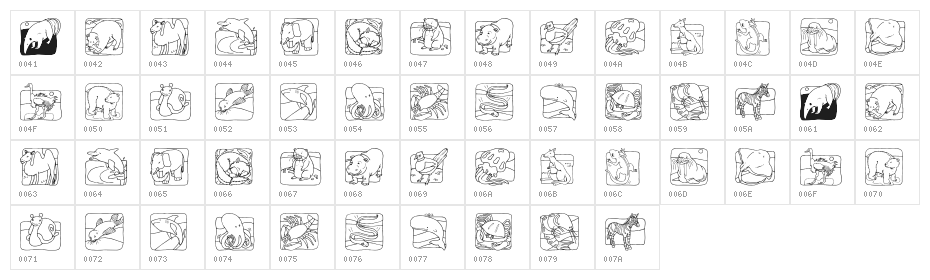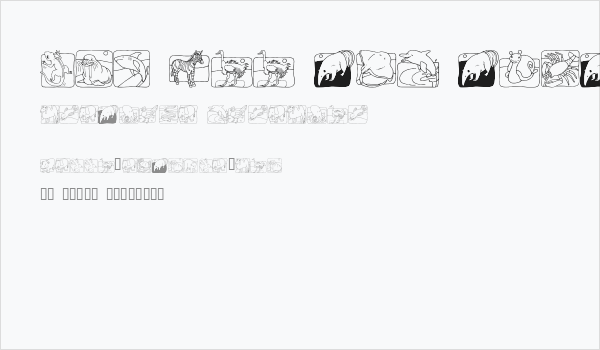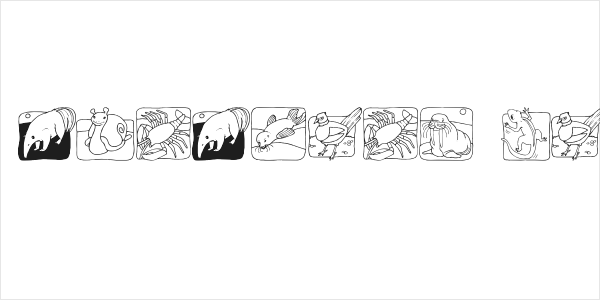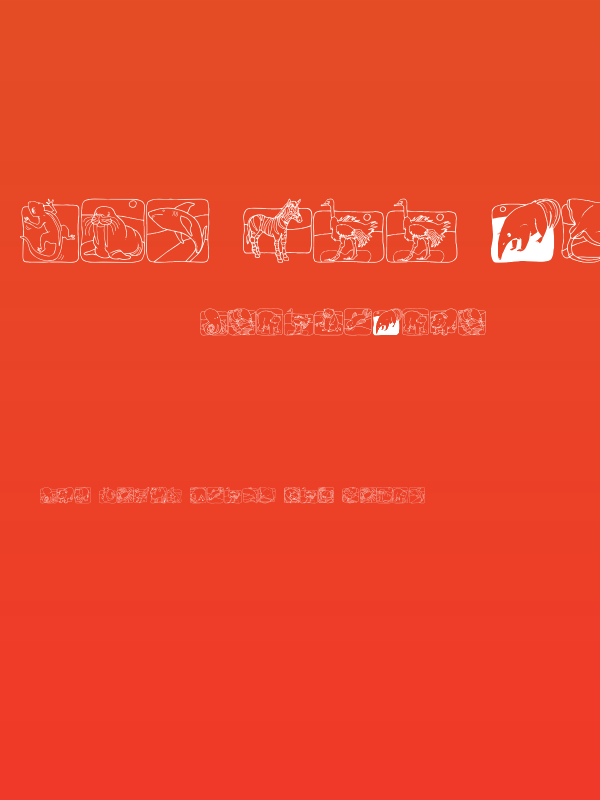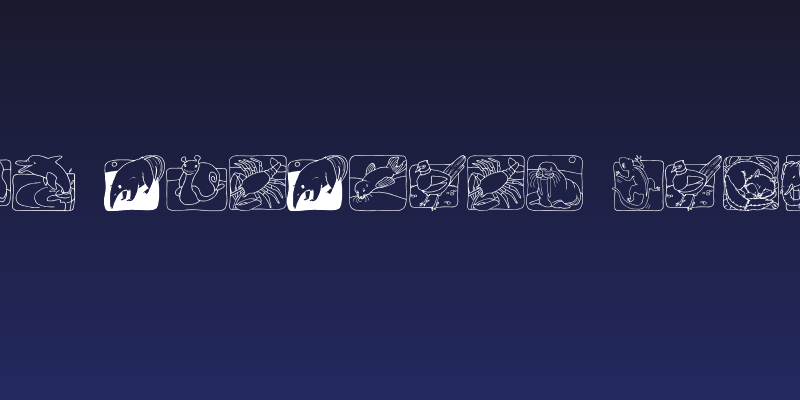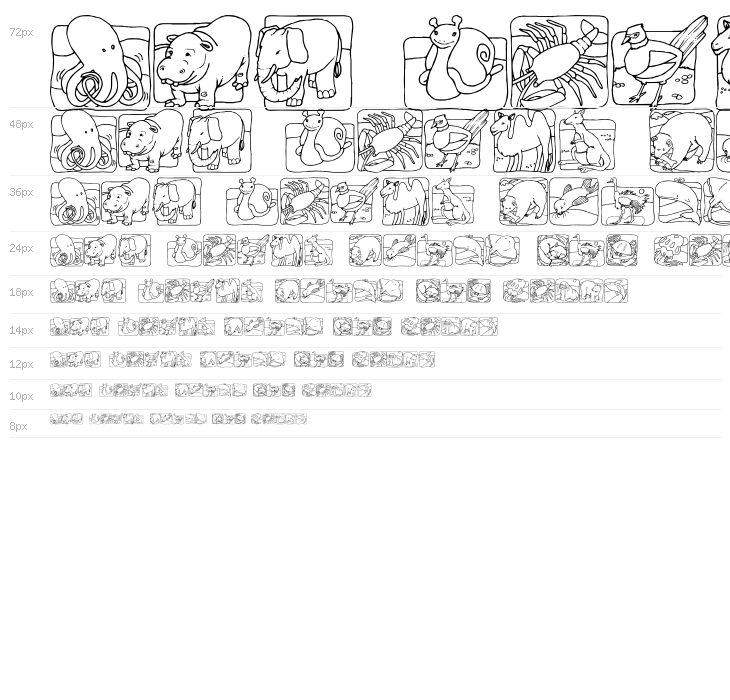
LMS Zoo and Aquarium Life Ding Bat Font
LMS Zoo and Aquarium Life Ding Bat Description
This font is a playful and decorative collection of dingbats featuring various zoo and aquarium animals. Each character is represented by a detailed illustration of a different animal, enclosed within a square frame. The style is whimsical and cartoonish, making it ideal for projects that require a fun and engaging visual element. The illustrations are intricate, capturing the unique features of each animal, from elephants and giraffes to fish and birds. This font is not suitable for text but serves as a creative tool for adding character and charm to designs.
| Use Case | Logos, Illustrations, Decorative elements |
| Proposed Projects | Ideal for children's books, educational materials, zoo and aquarium promotional materials, and playful design projects. |